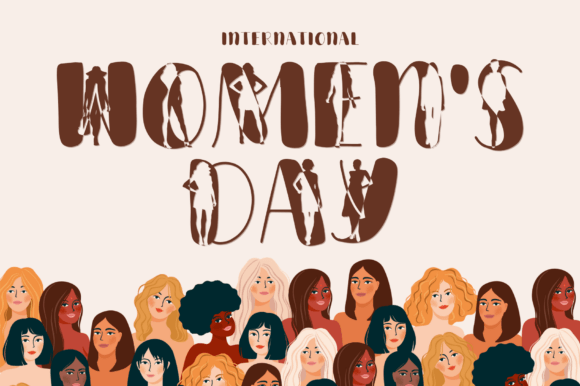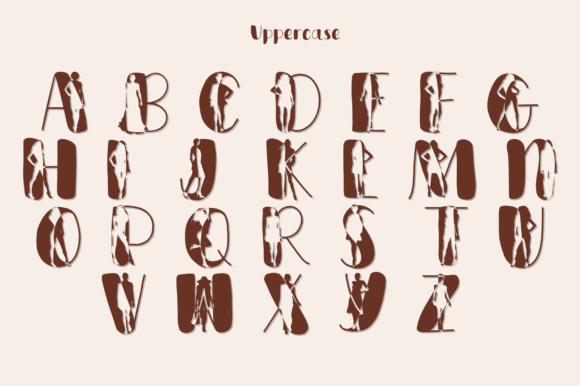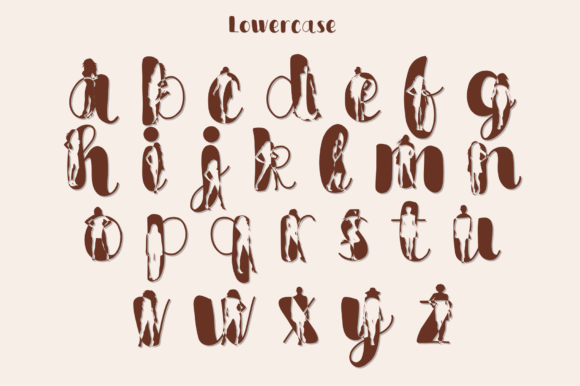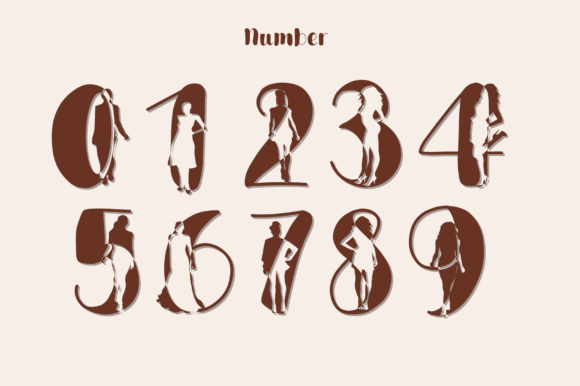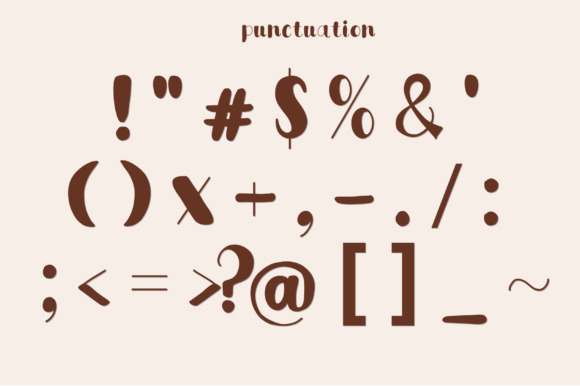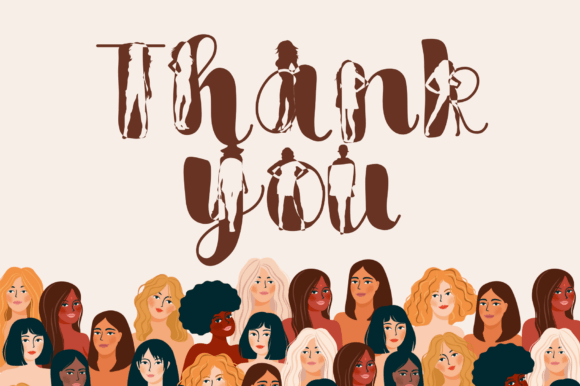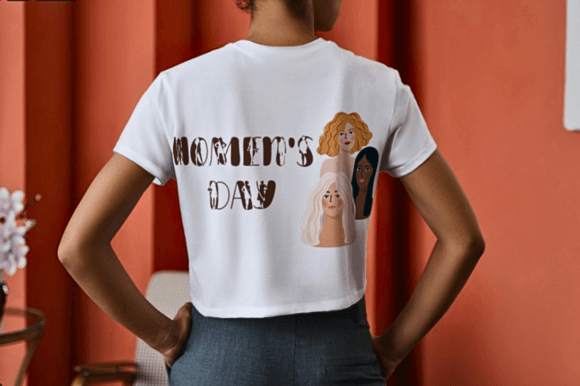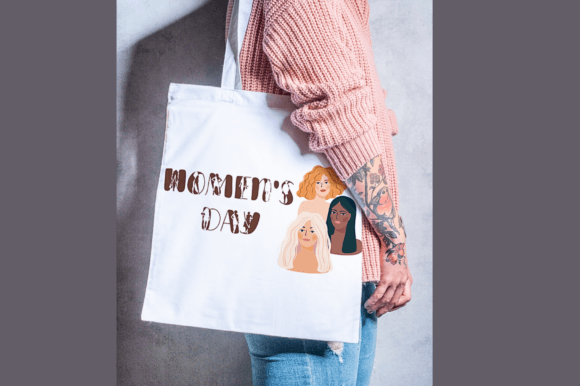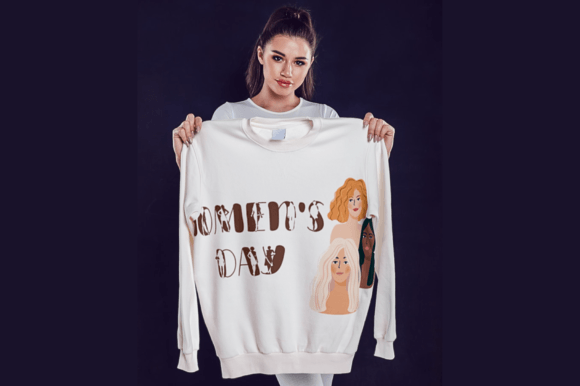
Women’s Day Font
Introducing “Women’s Day” font—a celebration of feminine strength and diversity. Bold strokes embody resilience, while elegant curves evoke grace. From empowering scripts to sleek serifs, each character honors women’s multifaceted essence. With its versatility, it’s perfect for empowering branding, inspiring designs, and incl
usive messaging. Elevate your projects with Women’s Day—a font that speaks volumes, ignites change, and celebrates womanhood in every stroke.